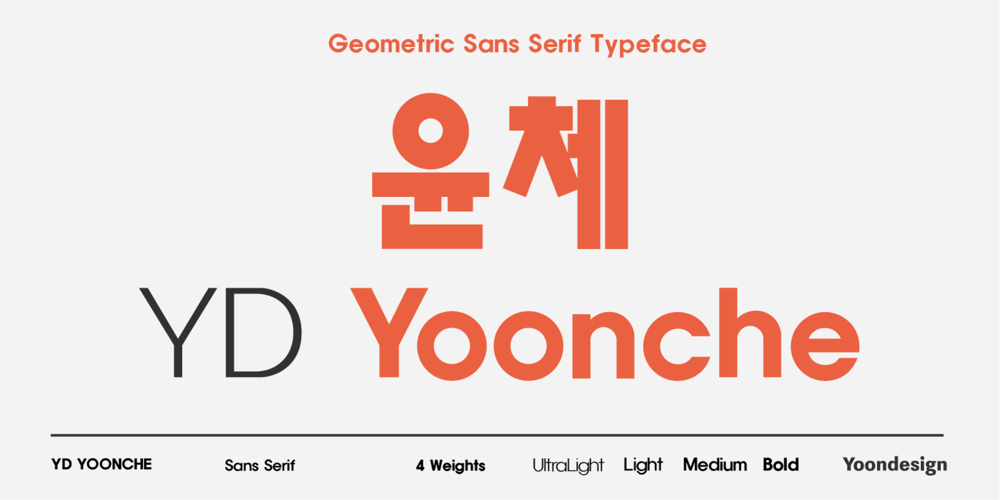
YD Yoonche Font Family was designed by Yoon Design Team and published by Yoon Design. YD Yoonche contains 4 styles and family package options. YD Yoonche Family is inspired by classical typefaces of Korea, Hunminjeongeum Using the square module, YD Yoonche Family is a clean and legible modern san-serif typeface. This font family with 4 styles will be the best solution for posters, titles and anywhere you need impact.